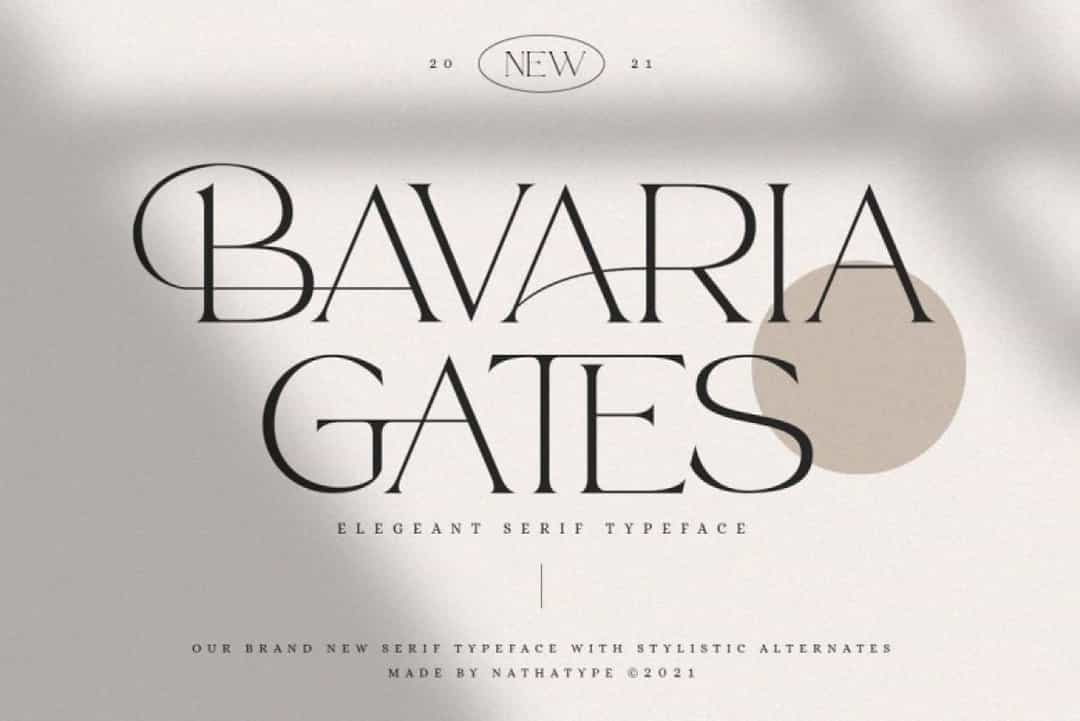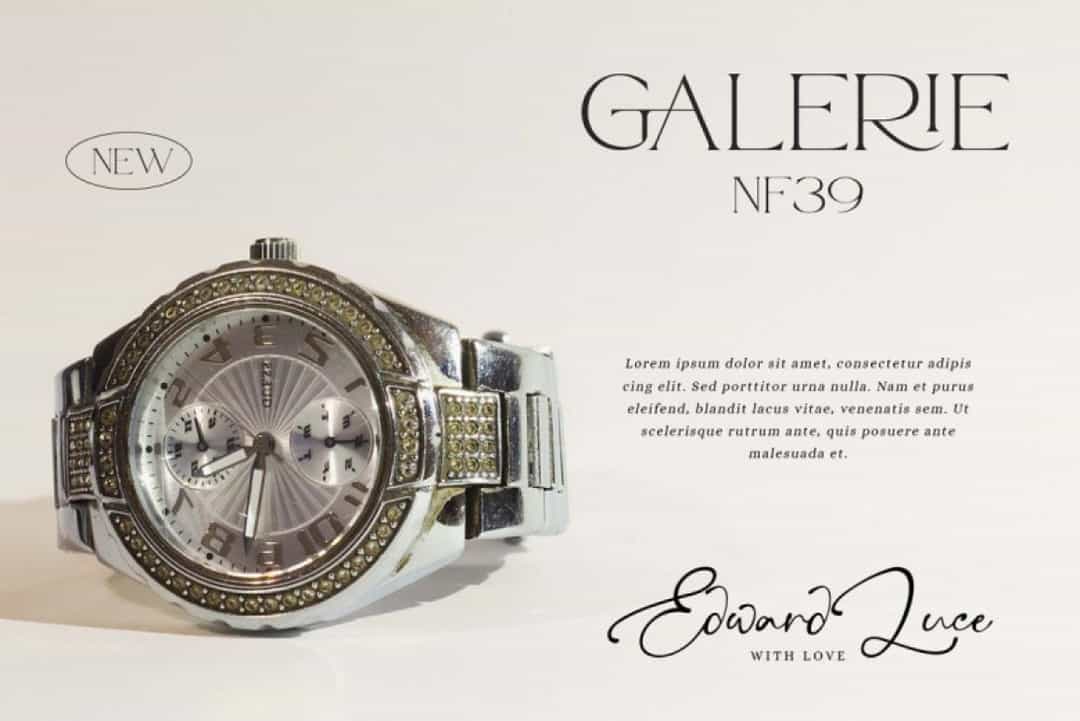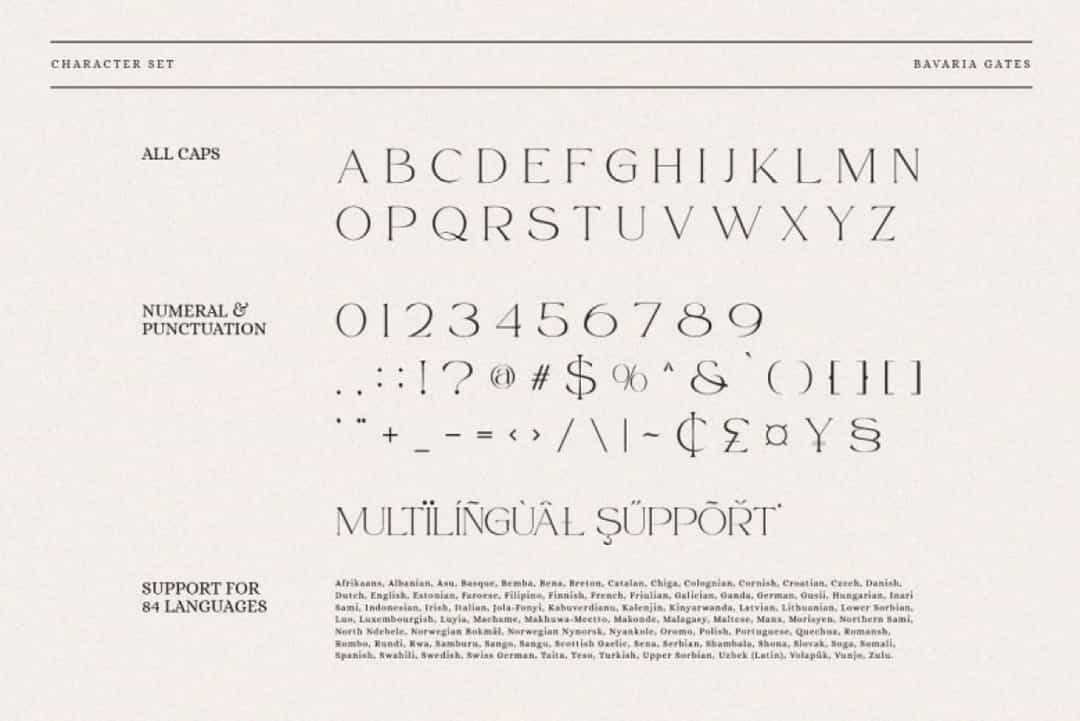
Bavaria Gates is an all uppercase serif typeface created from serifs that adds modern flare. Perfect for many promotional and projects – book covers, logo posters, t-shirt branding campaigns, advertising efforts or any other need! – this font provides all-in-one solutions.